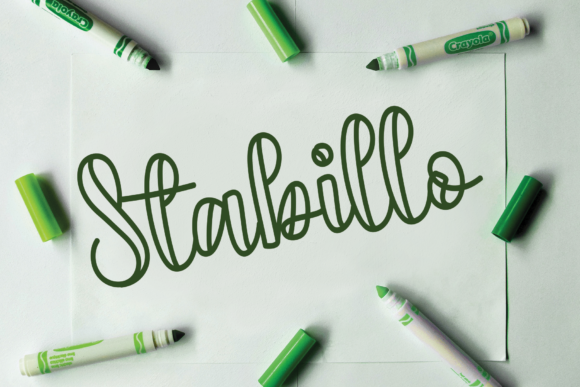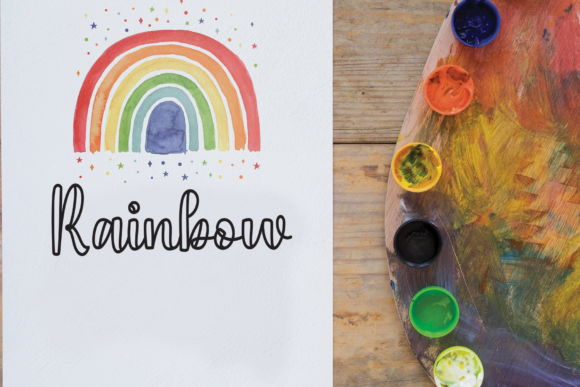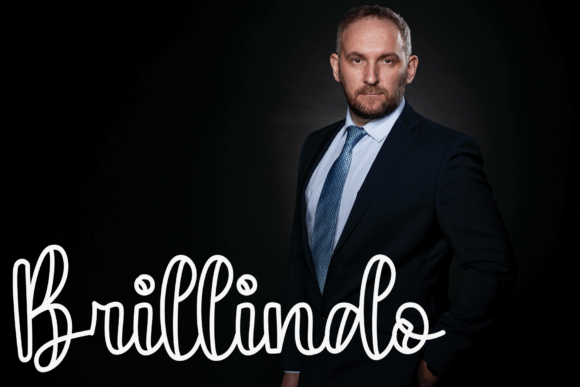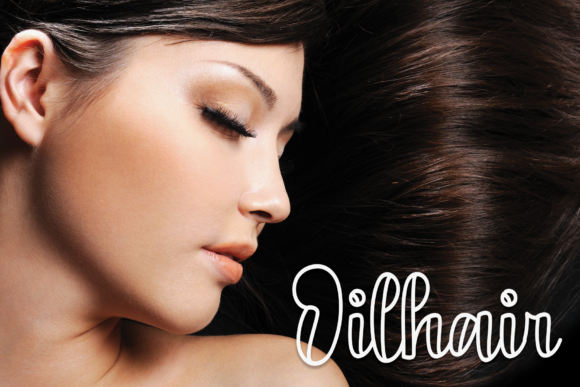
Introduction to Sallmon Font
Sallmon is a beautiful and flowing handwritten font.
Use it for wall hangings, wedding invitations, social media post logos, advertising, product packaging, product design, labels, photography, watermarks, invitations, stationery and any project that requires impressive typography .
Key Features of Sallmon Font
Why Choose Sallmon Font?
Sallmon Font offers exceptional quality and versatility, making it a valuable addition to your design toolkit. Whether you’re creating for personal projects or commercial use, Sallmon Font delivers professional results.